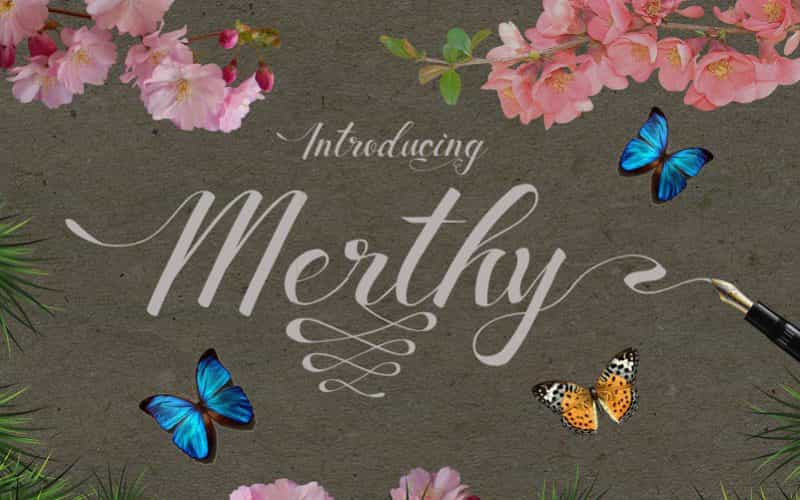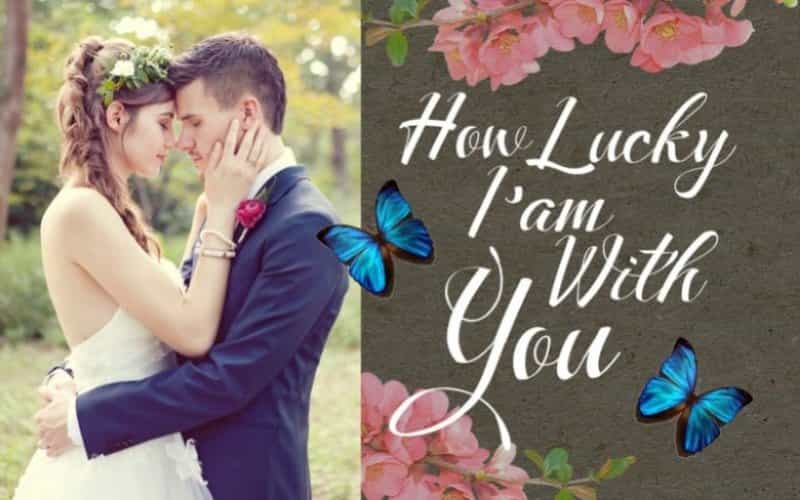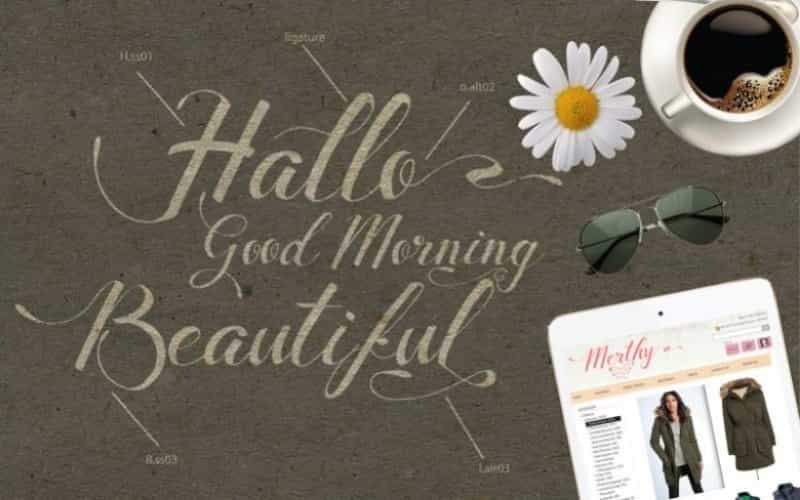
Discover Merthy Script Font, part of the Commercial Brush Calligraphy collection—a versatile and unique font perfect for adding a personal touch to your projects. Download it for free and enjoy crafting designs with style, from invitations to social media posts. This font is available exclusively for personal use, giving you the freedom to create without limits. Unlock your creativity with Merthy Script Font today!
More than 350 glyphs across Deduk’s handcrafted Merthy script font make it a one-stop type shop.